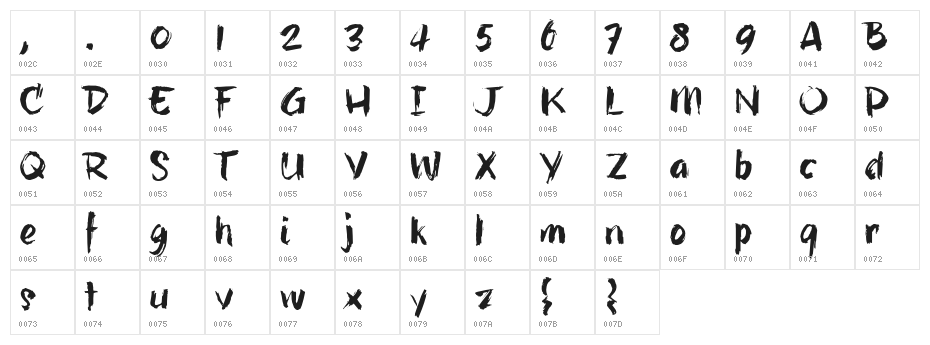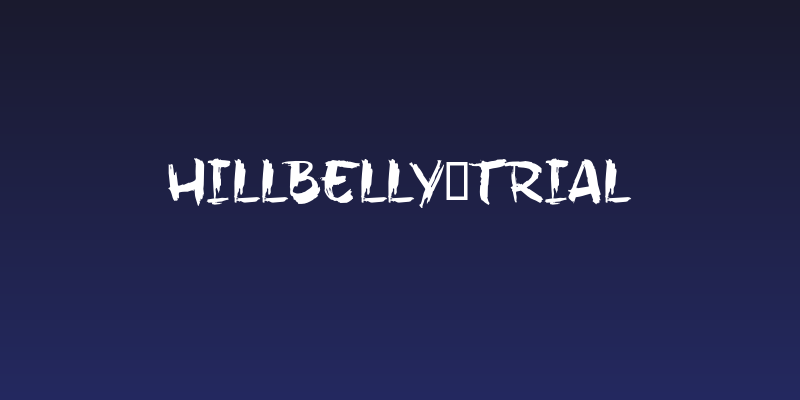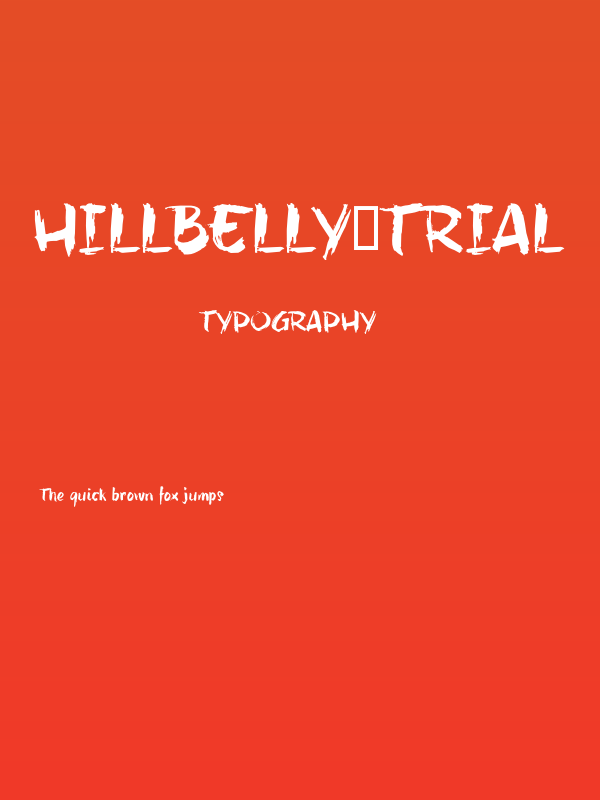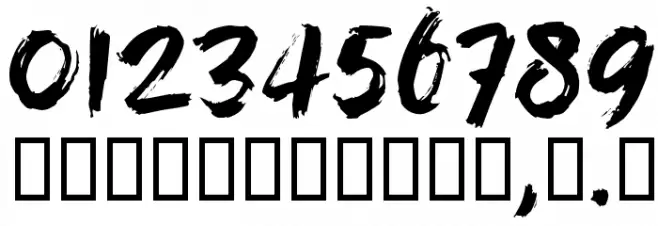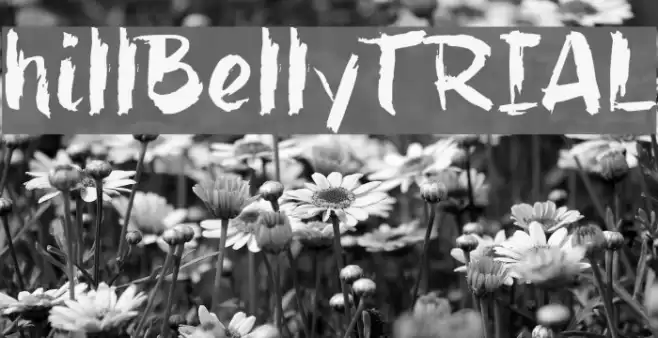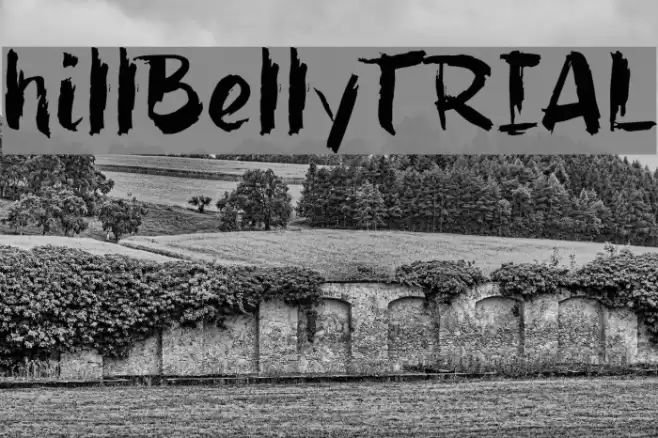
hillBelly_TRIAL Font
hillBelly_TRIAL Description
This font features a bold, brushstroke style that exudes energy and dynamism. Each character is crafted with a rough, textured appearance, reminiscent of hand-painted lettering. The uppercase and lowercase letters maintain a consistent style, with varying stroke widths that add a sense of movement and fluidity. The numerals and special characters follow the same aesthetic, ensuring a cohesive look across all text elements. The font's unique, artistic flair makes it ideal for projects that require a strong visual impact.
| Proposed Projects | Ideal for posters, album covers, branding, and any project needing a bold, artistic touch. |